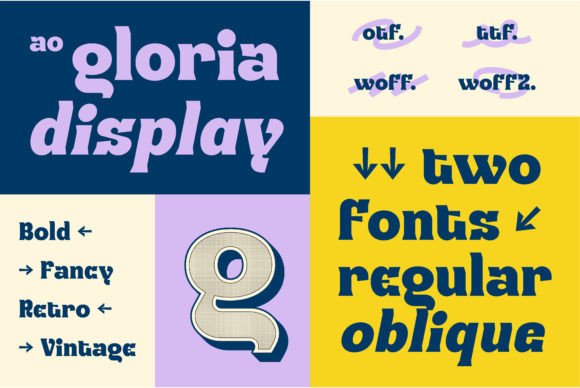
The AO Gloria Font: A Bold and Adventurous Typeface for Creative Projects
An Honest Review of AO Gloria
- ✨ **Bold and Impactful**: AO Gloria has a strong presence that demands attention. Its bold structure makes it perfect for headlines and large prints.
- ✅ **Stylistic Ligatures**: The font comes with stylistic ligatures that add a touch of elegance and sophistication to your designs.
- 🎨 **Colorful**: AO Gloria is a colorful font that can add a pop of color to your designs, making them more engaging and fun.
- 🤔 **Limited Use Cases**: Due to its bold nature, AO Gloria might not be the best fit for body text or small font sizes.
- ⚠️ **Glyph Limitations**: Some users have reported that the font’s glyph library could be more extensive.
The Backstory of AO Gloria
AO Gloria was designed by a team of typographers who wanted to create a bold and adventurous font that would capture the essence of creativity and playfulness. Inspired by vintage posters and bold typography, AO Gloria is a font that’s meant to make a statement. Whether you’re designing a logo, a poster, or a social media graphic, AO Gloria is the perfect choice.
A: AO Gloria is a bold and adventurous typeface designed for headlines and large prints. It’s perfect for creative projects that require a strong and impactful font.